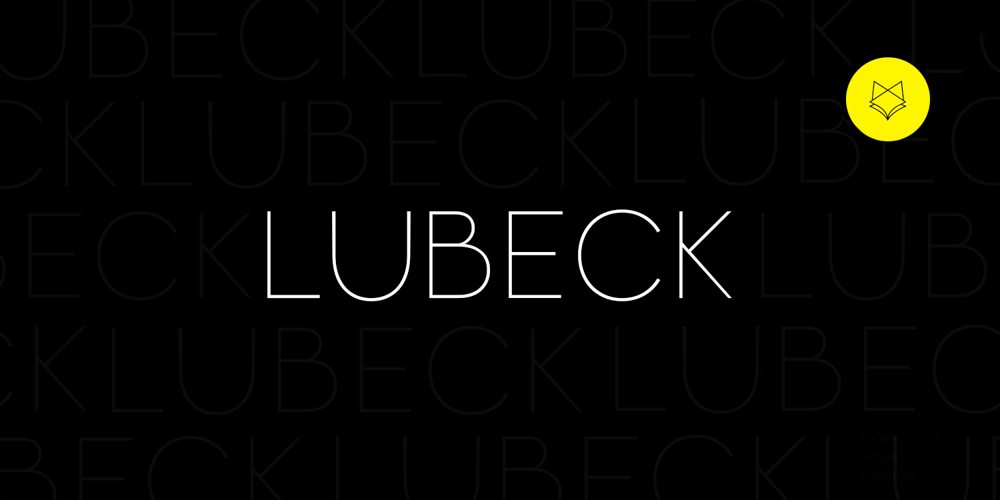
Lubeck Font Family was designed by Evin Tony and published by FoxType. Lubeck contains 3 styles and family package options. Introducing Lubeck Display, new generation Typeface with 3 Weights. Lubeck Typeface created with the vision of to attract the audience to your brand . The finest details of this typeface are methodically and mathematically created. Lubeck is created with all the tasks of a corporate font and also for the usage in a variety of projects, including branding, logos, titles, headlines, servers, screens, display, digital ads, and everything else.We are putting a lot of effort on this font as a long-term project. The Typeface includes Three Weights. Light, Regular and MediumFeatures:Numerals, extended punctuation & Basic Symbols(200+ Glyphs). Expert kerning and quality crafting. Uppercase Letters & Lowercase Letters.